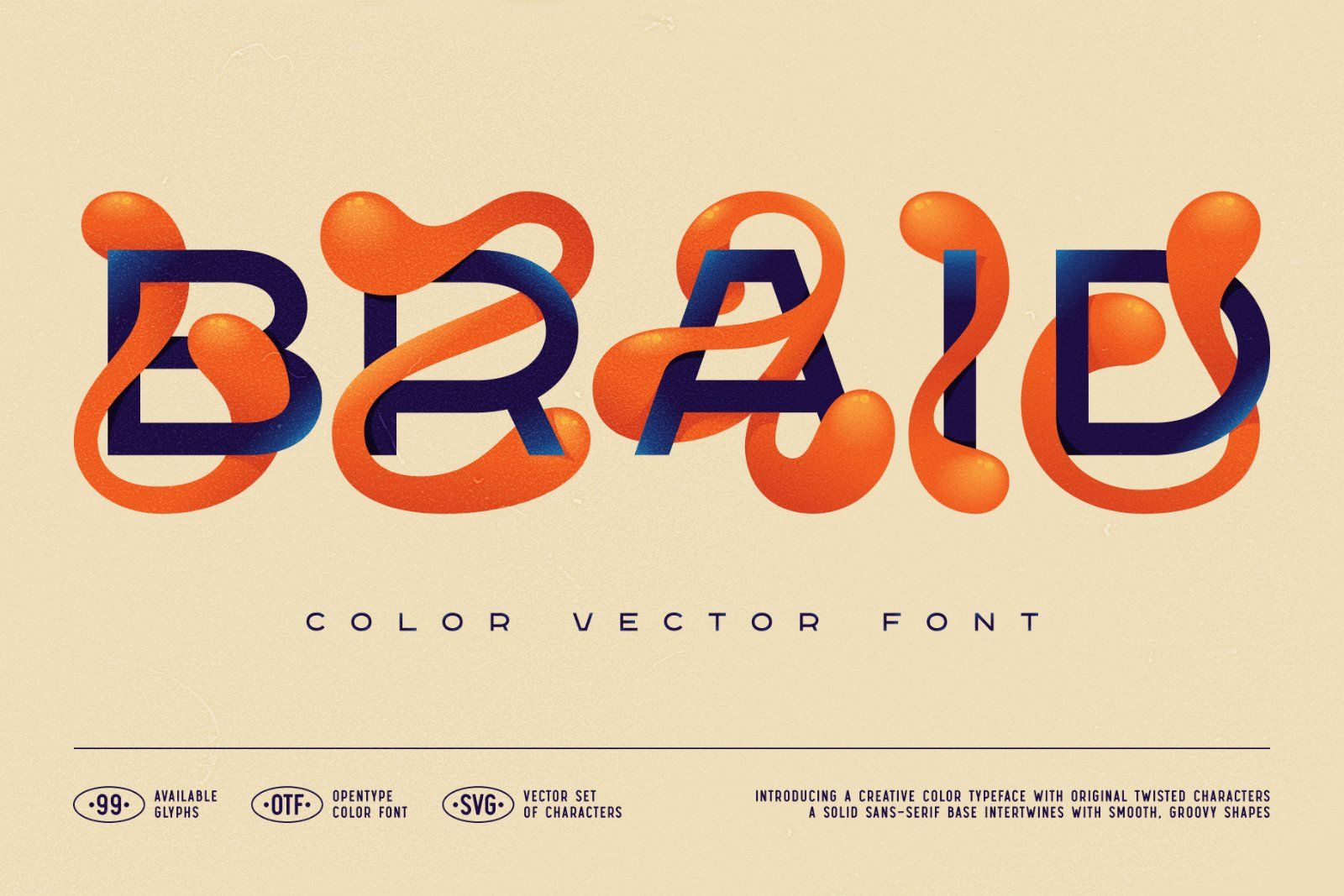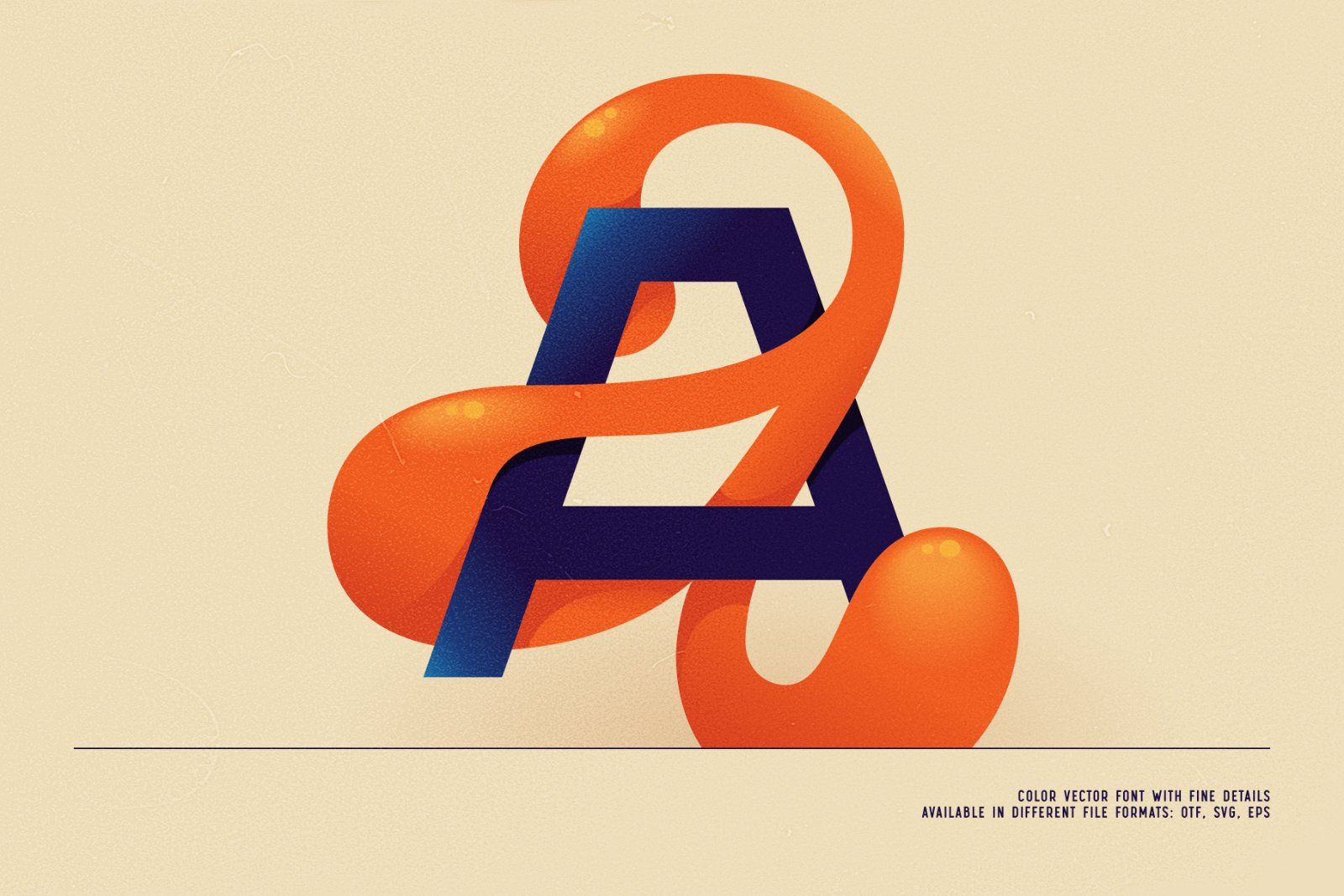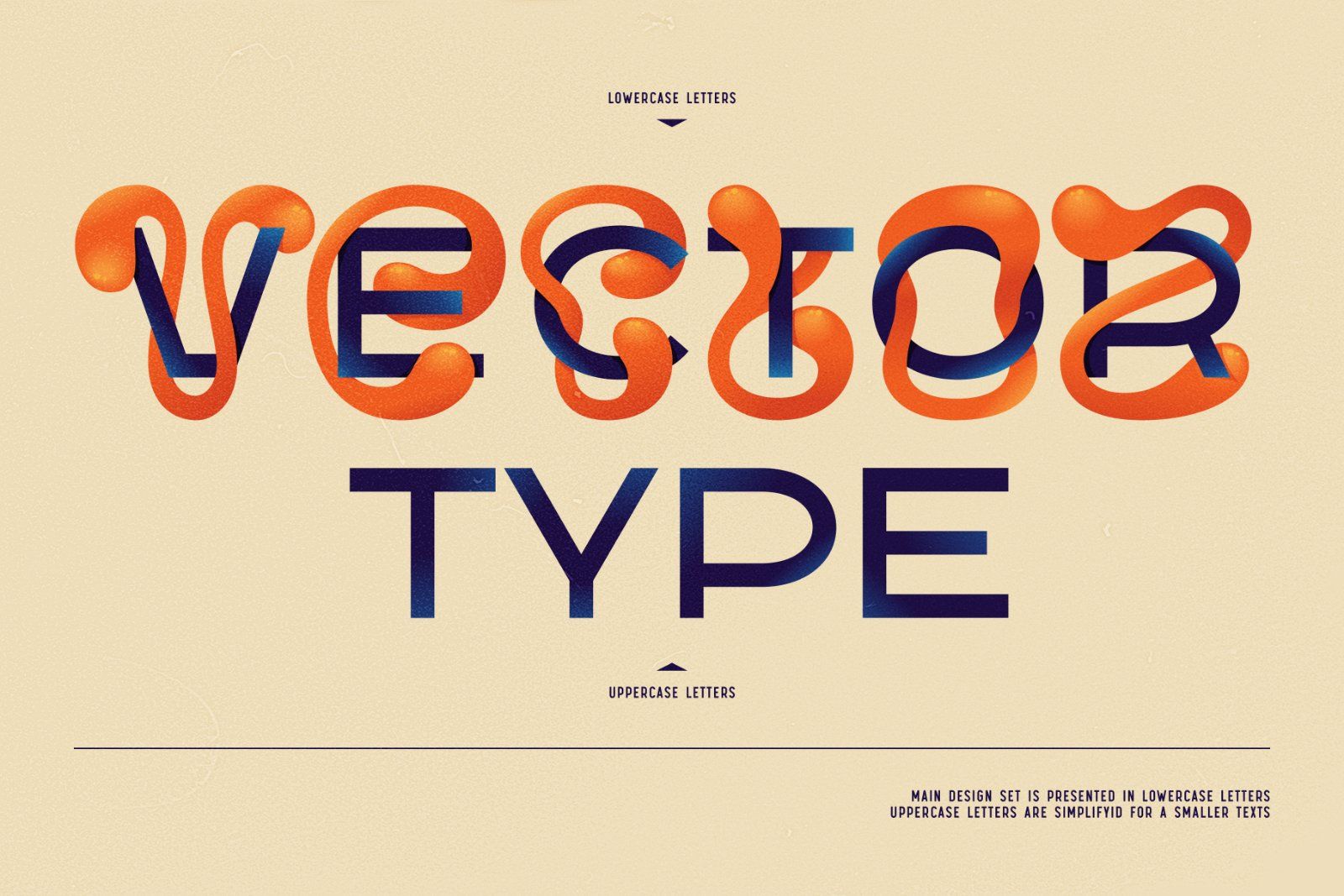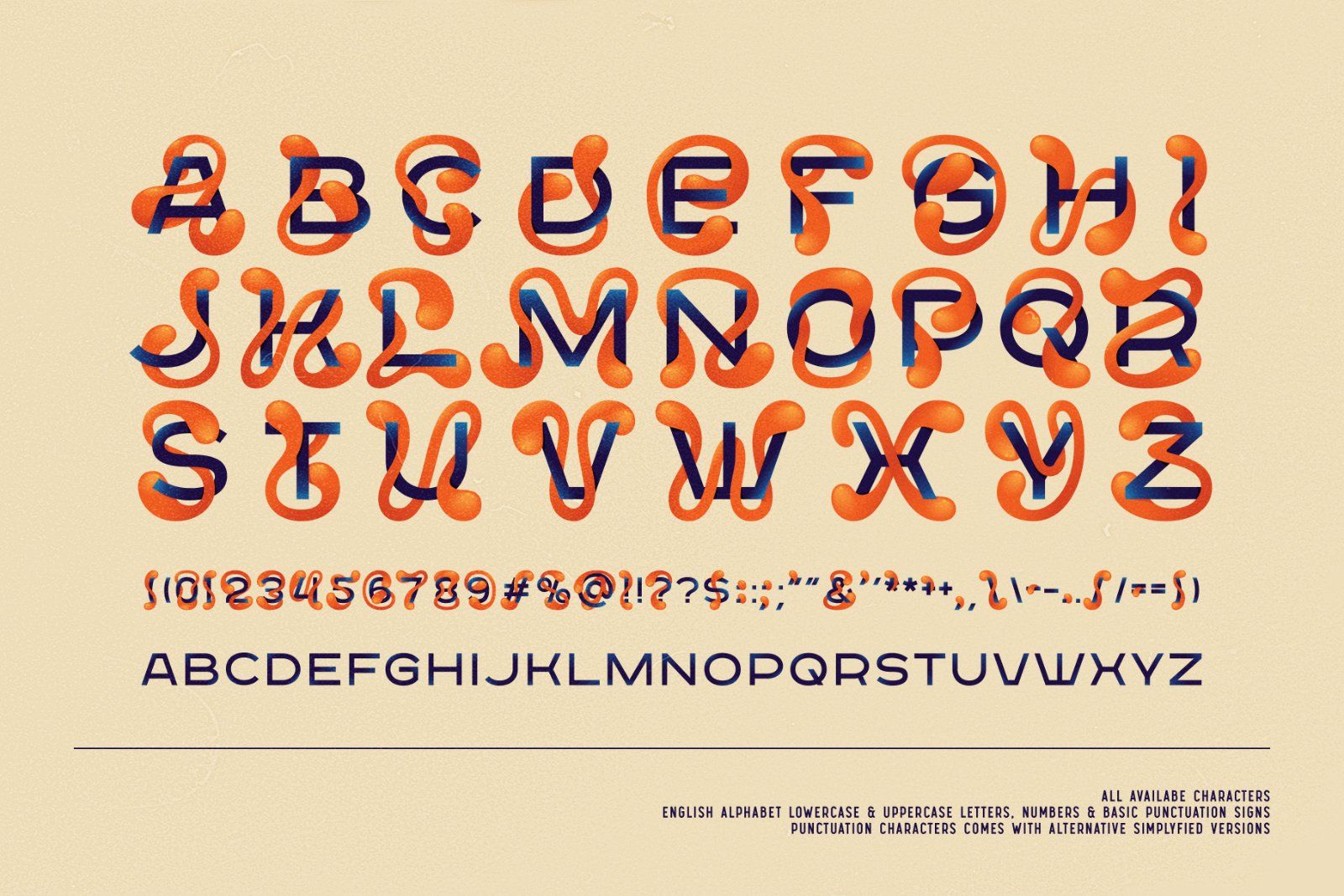
Introducing Braid, a colorful, creative vector font set. This typeface has an original twisted characters. A solid sans-serif base intertwines with smooth, groovy shapes. Uppercase and lowercase letters are creatively mixed in one symbol.
Consider that the font supports only the English language and basic punctuation. Be sure to review the included screenshot for a complete list of available characters.